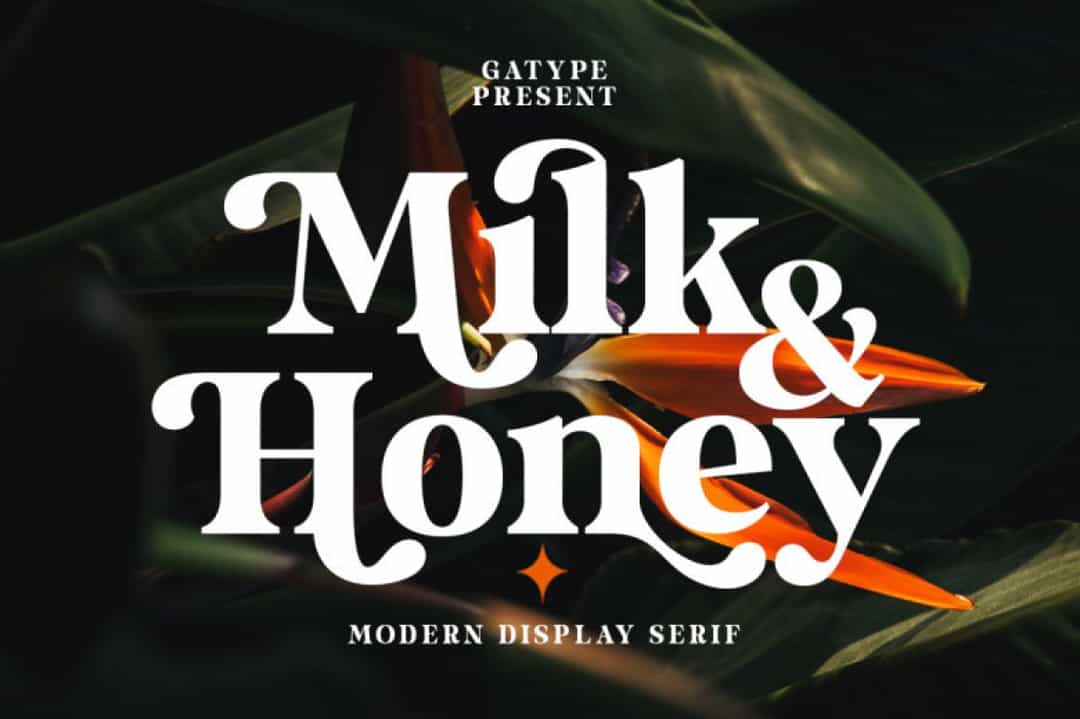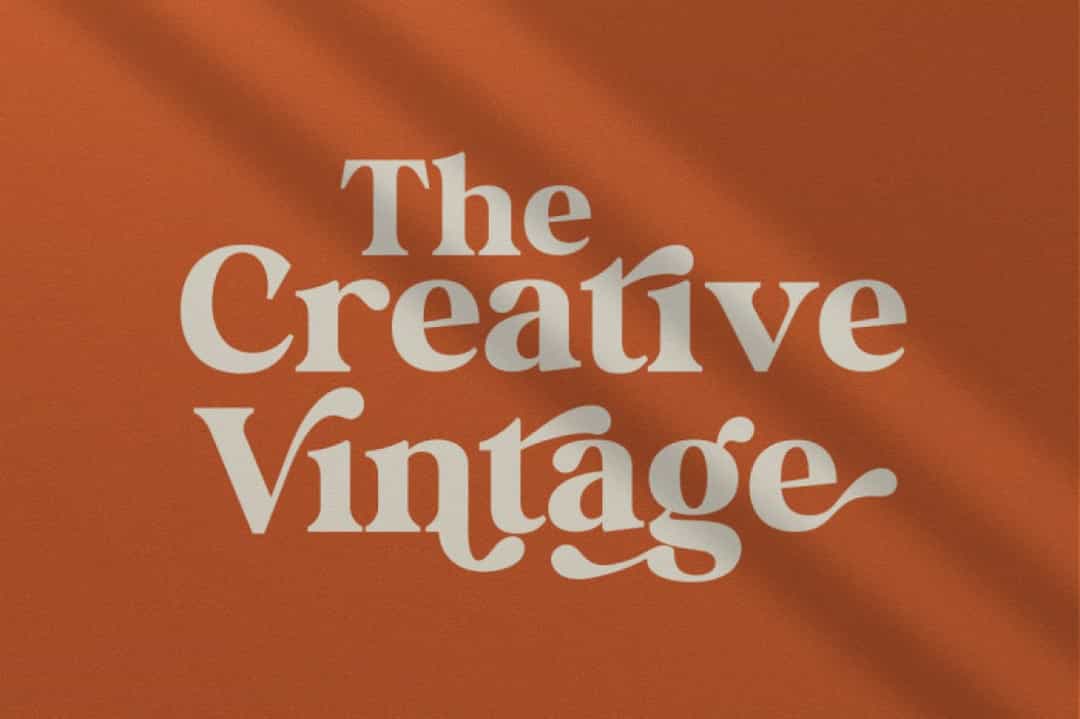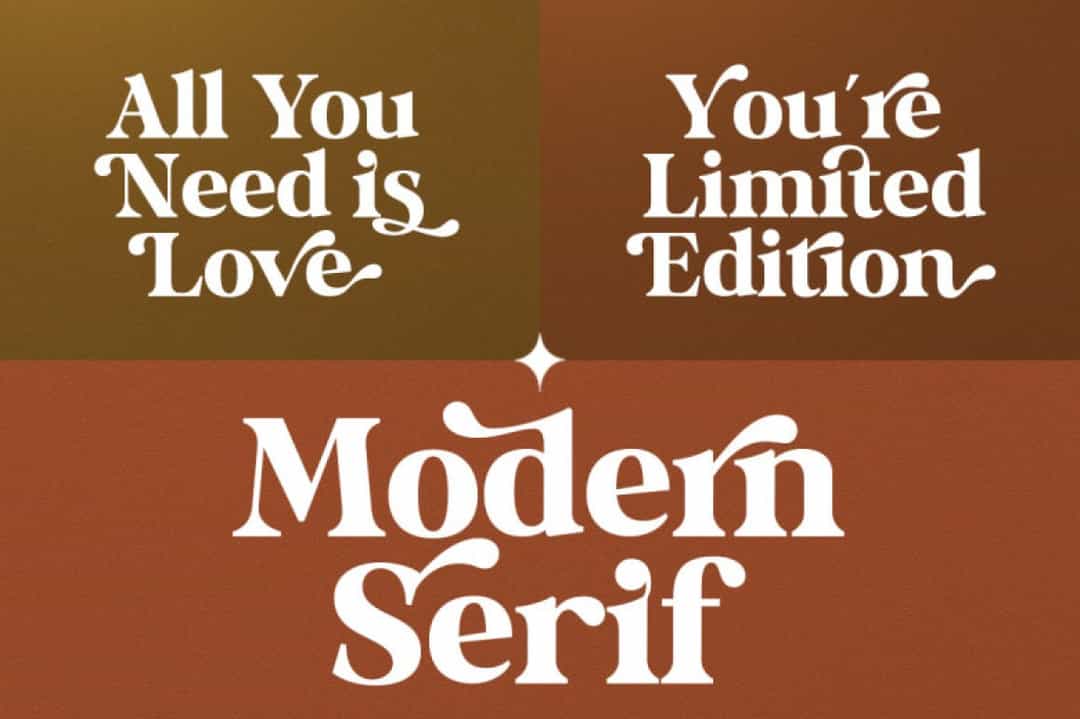
Milk and Honey is an elegant, fashionable and thick serif with lettered font. PUA encoded, this font enables easy access to all its glyphs and swashes! Let yourself be inspired by its remarkable versatility for designing extraordinary designs!